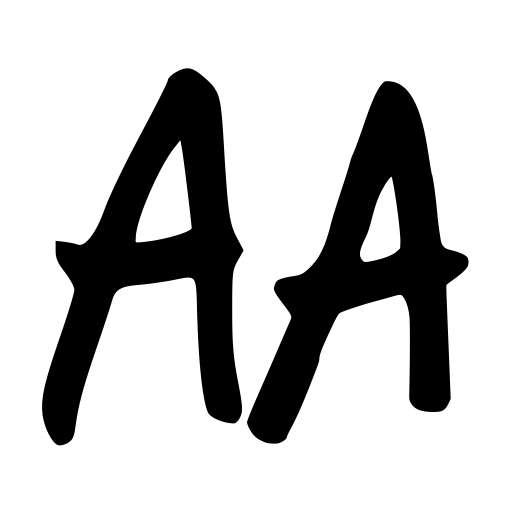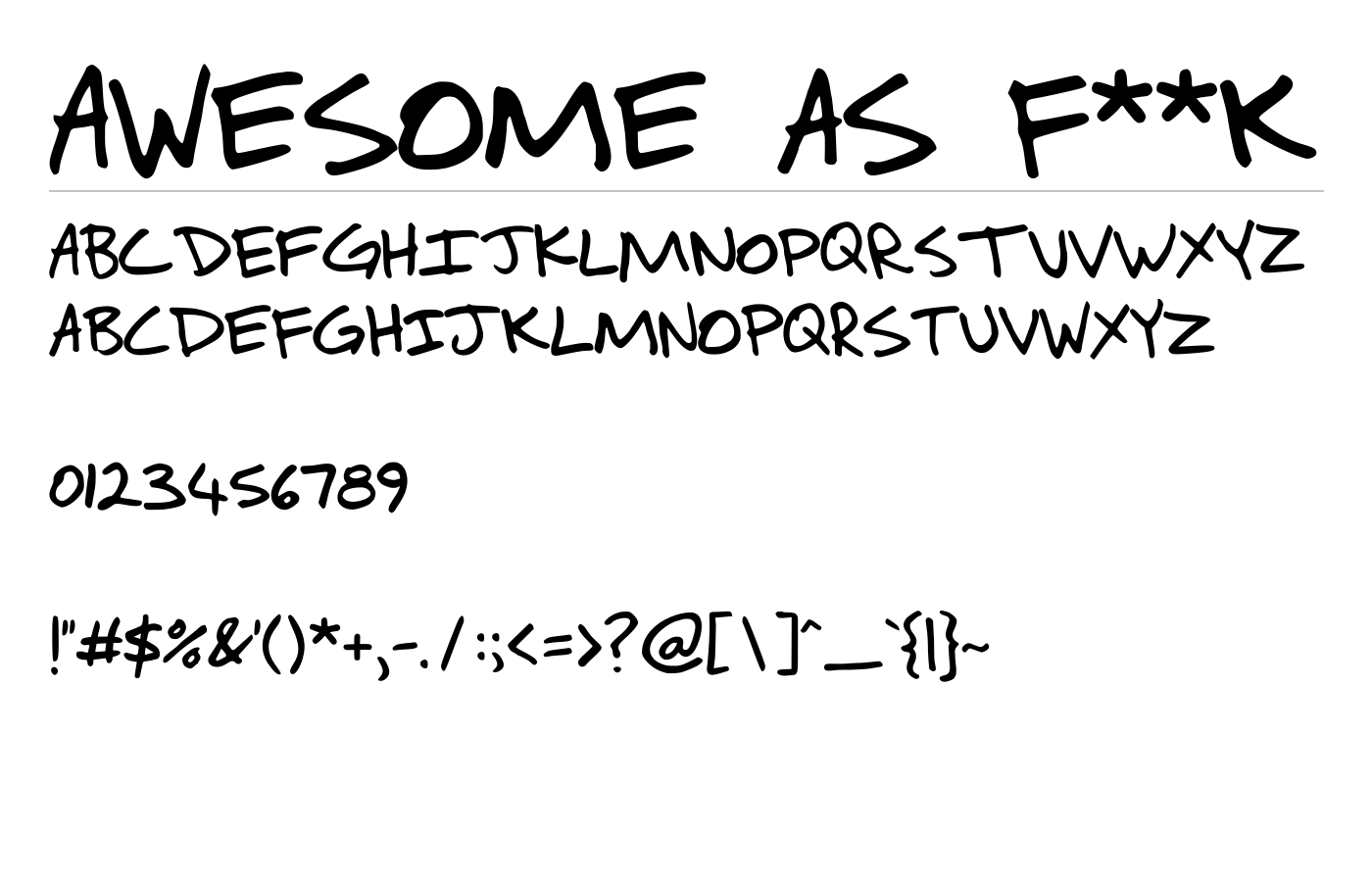
Awesome as f**k Font is a casual, handwritten sans serif typeface with a playful and energetic feel. Its uneven strokes and informal shapes give it a lively, approachable personality, making it perfect for fun, creative projects, casual branding, and designs that want to convey a relaxed, youthful vibe. This font works well in headlines, posters, and social media graphics where a bold and expressive style is needed.
Awesome as f**k Font
About Awesome as f**k Font